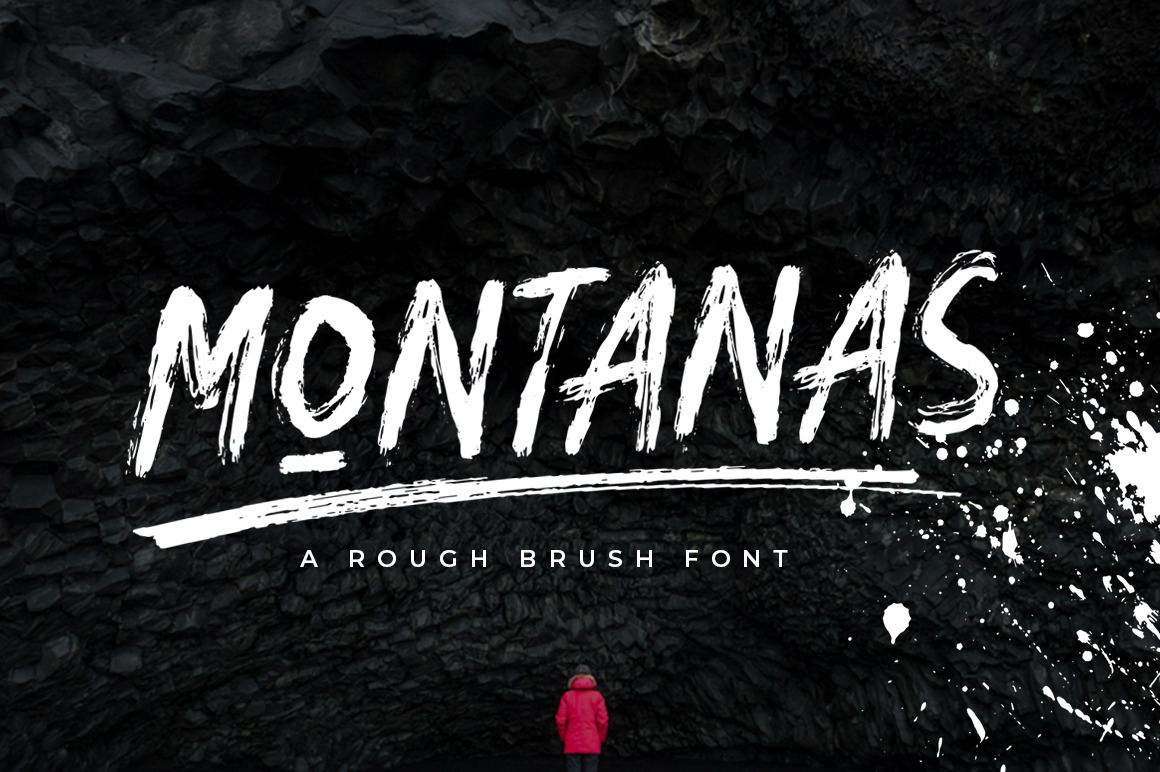
Montanas Brush Font
Now let us introduce you our new font called MONTANAS Rough Brush Font
MONTANAS is a rough brush font with a clear style and good flow This font is great for your next creative project such as Logotype, printed quotes, invitations, cards, product packaging, headers, Letterhead, Poster, Apparel Design, Label, and etc.